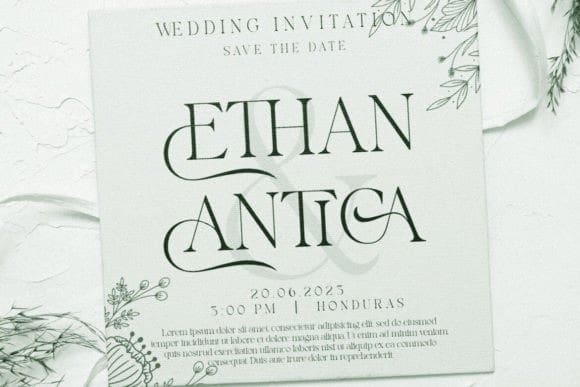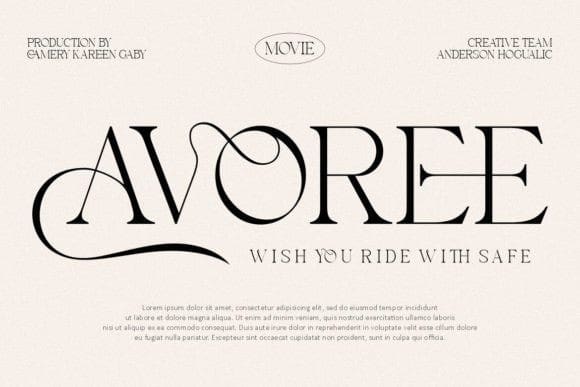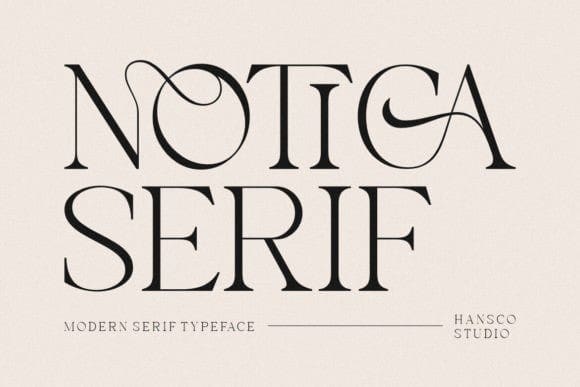
Notica Serif Font
Notica Serif Font is a classy display serif font with unique look that is perfect for multipurpose projects. I made Notica Serif Font inspired by the concept of romantic vibes and made it into a modern yet luxury style. This font is also looks elegant and will fit well in any design and very recommended for logo, crafts, posters, books, branding, quotes, print templates, packaging, invitations, product labels, advertising, wedding project and more. This typeface comes in uppercase, lowercase, with punctuation, symbols, numerals, ligature and stylistic alternates.